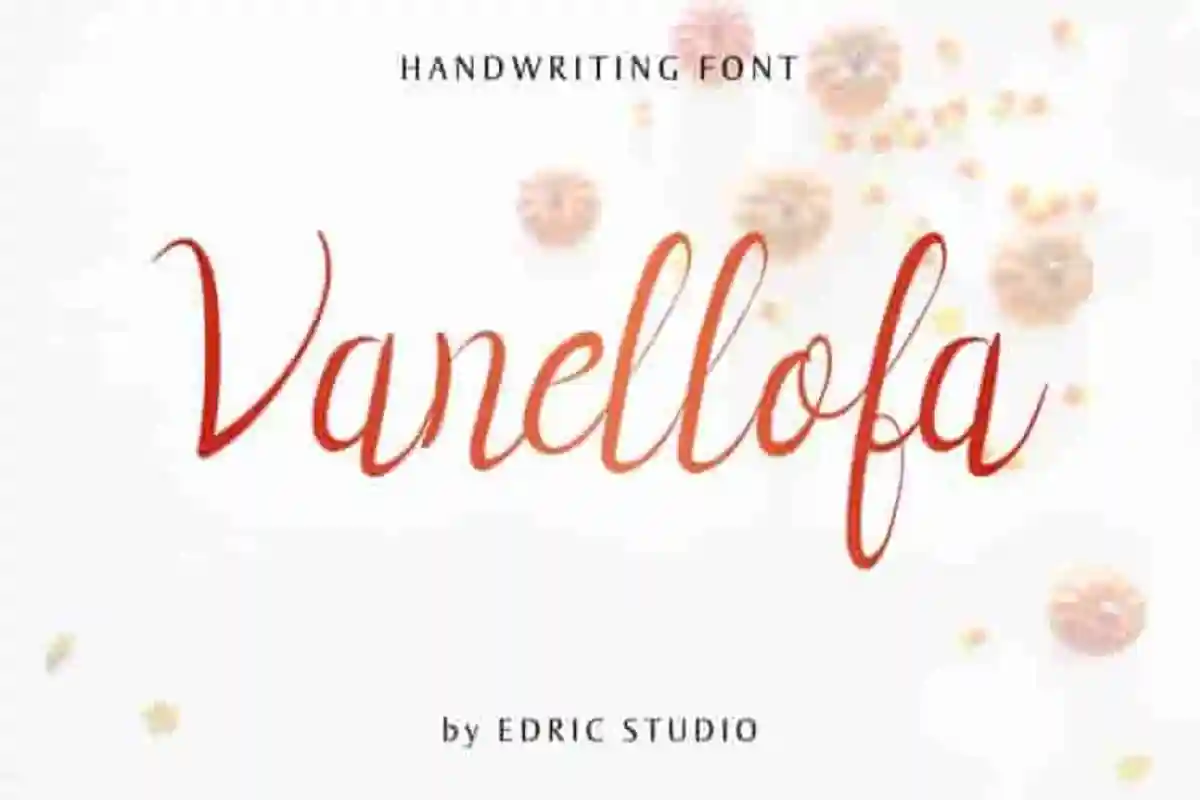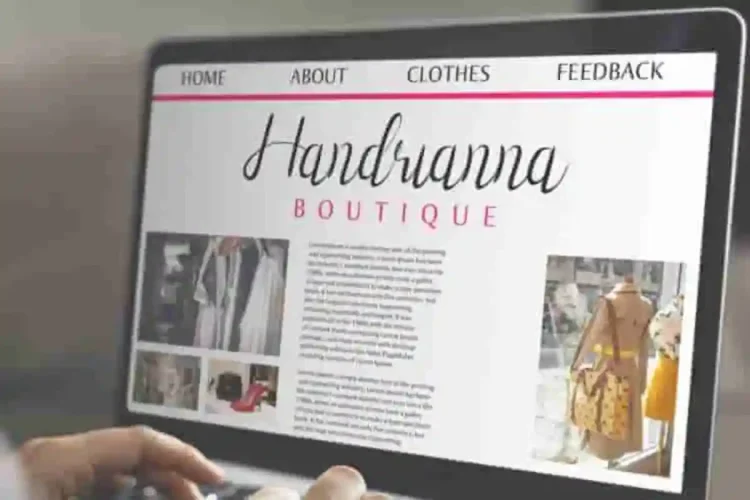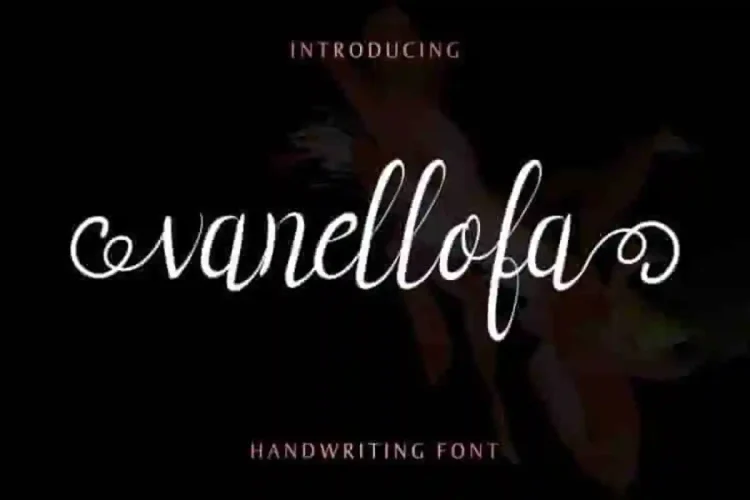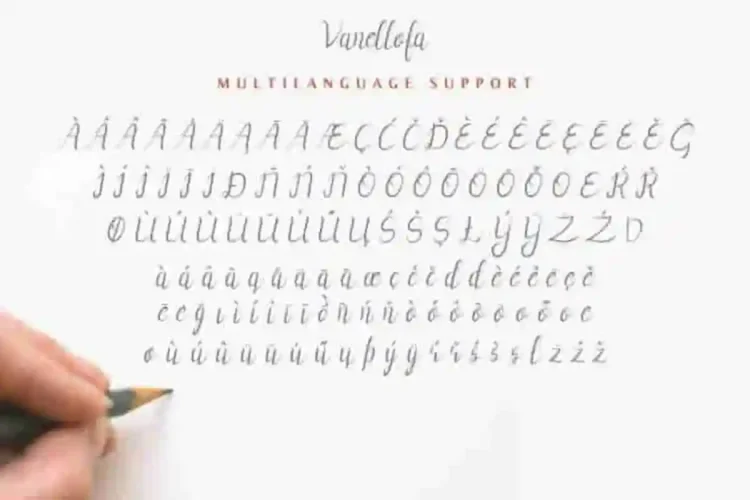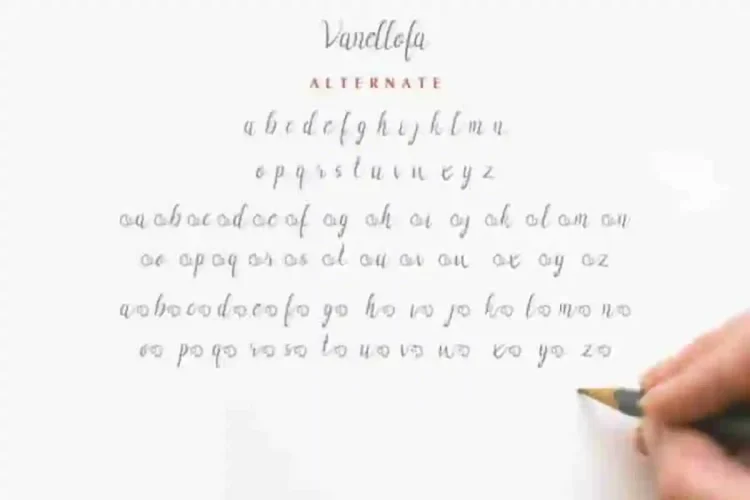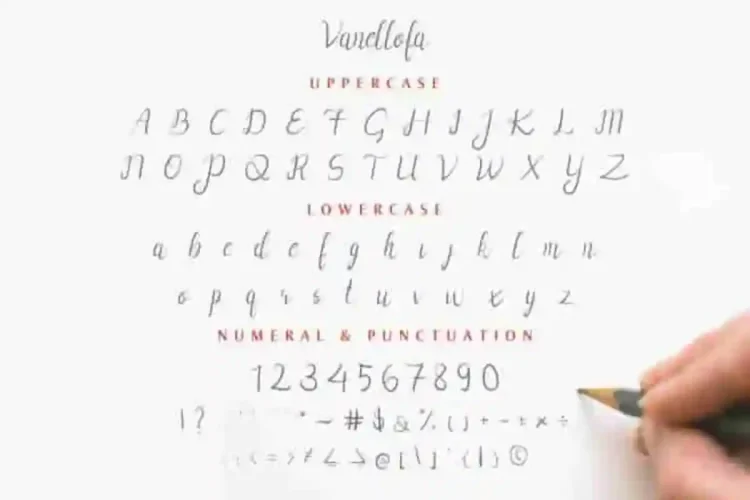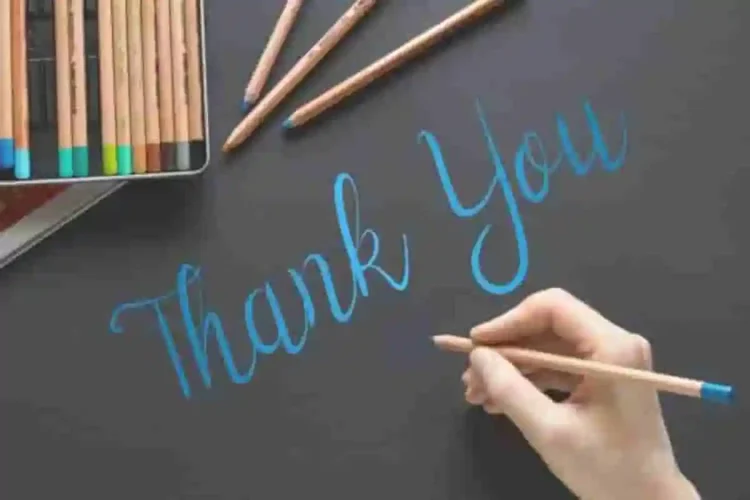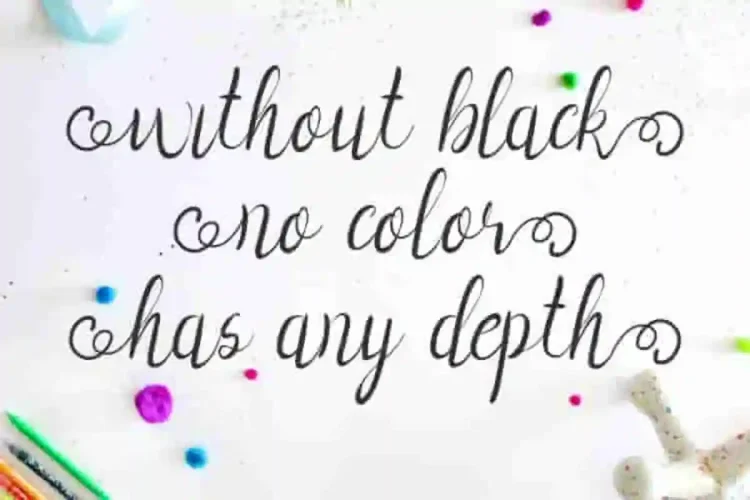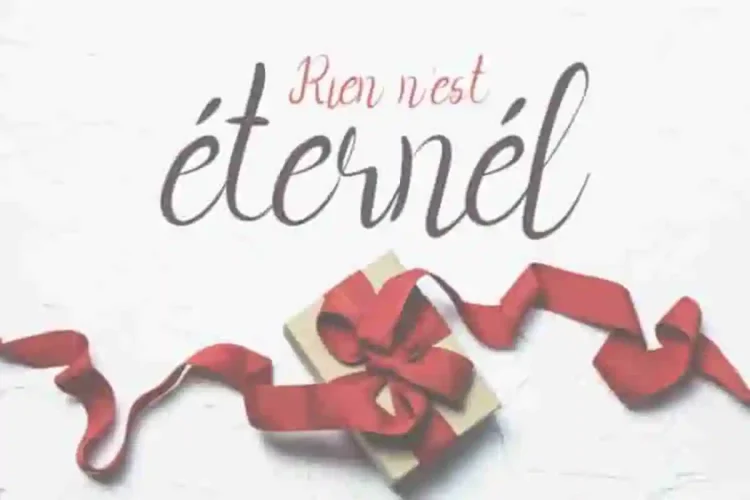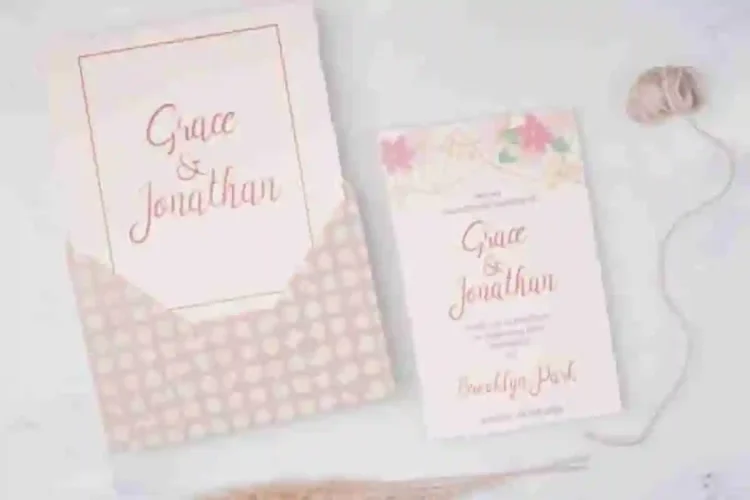
Vanellofa Calligraphy Font
Edric Studio in 2020 Present to you :  Vanellofa Calligraphy Script Font
This is a calligraphy font family made in Bandung-Indonesia. It has really unique and beautiful characters.
Vanellofa Script Font This font script will suits many projects categories : Logo type, flyer, stationery, business card, signage, flyer, brochure etc.  With your creativity, there’s no limit creation using with this font.